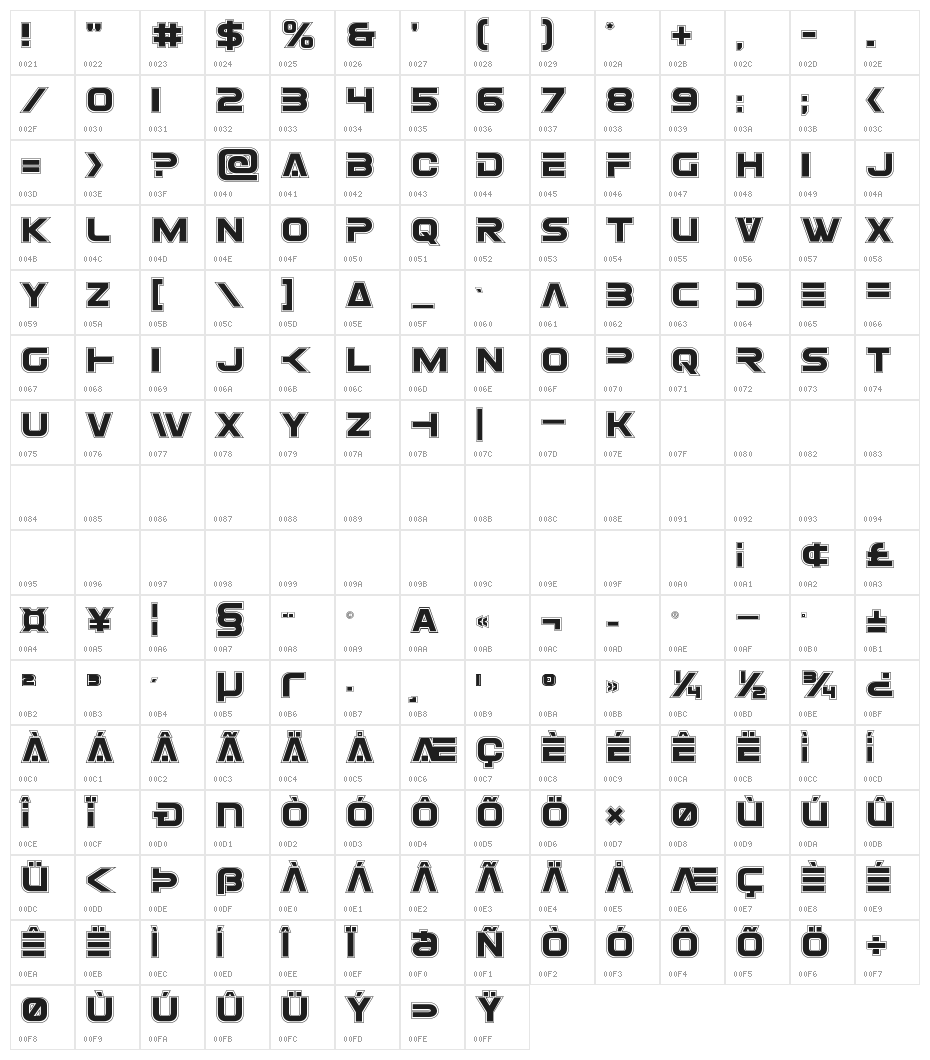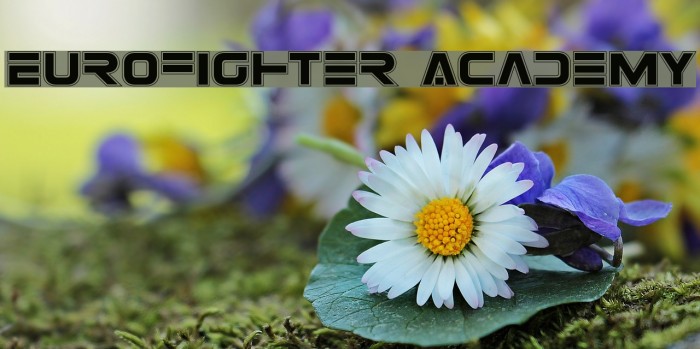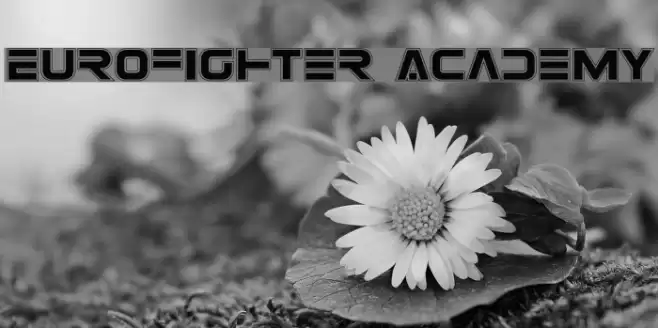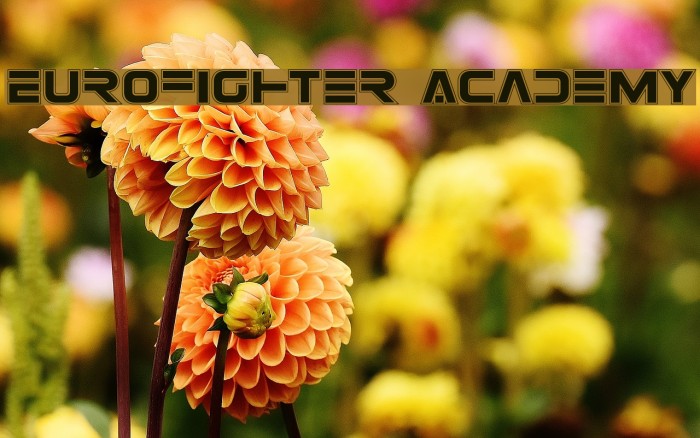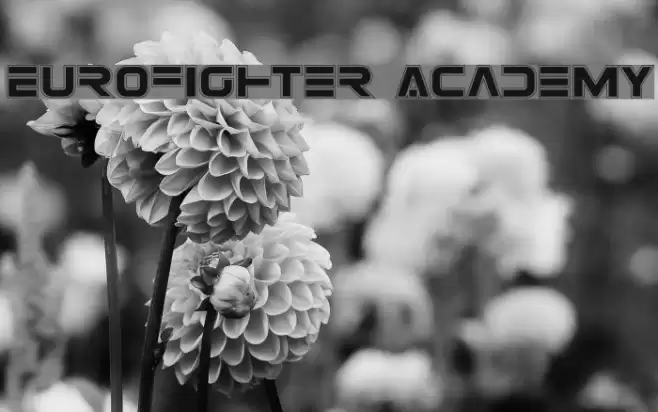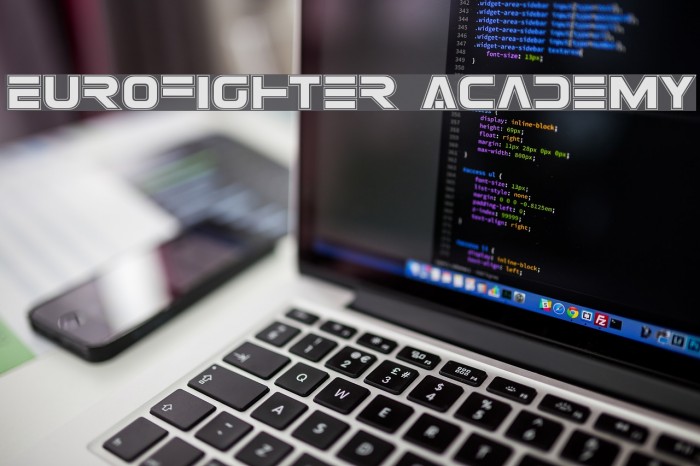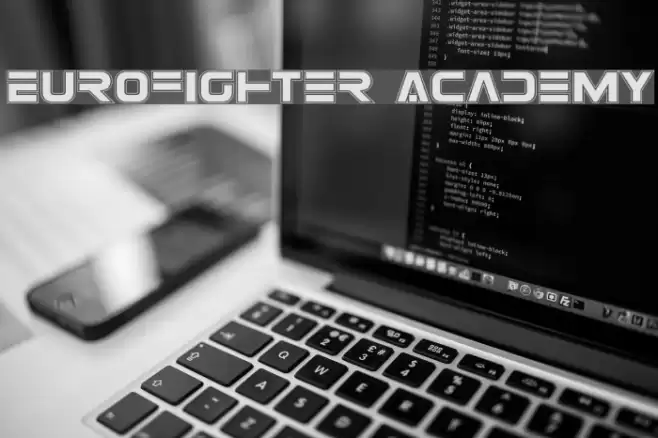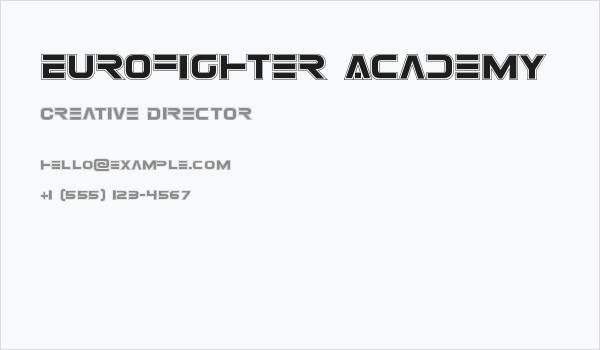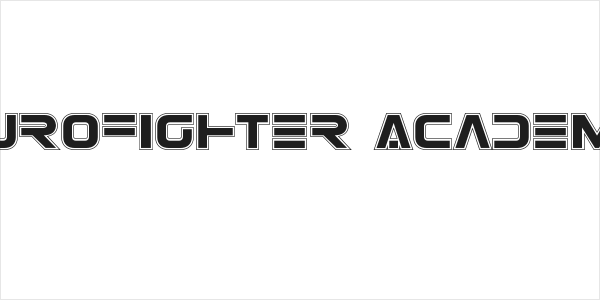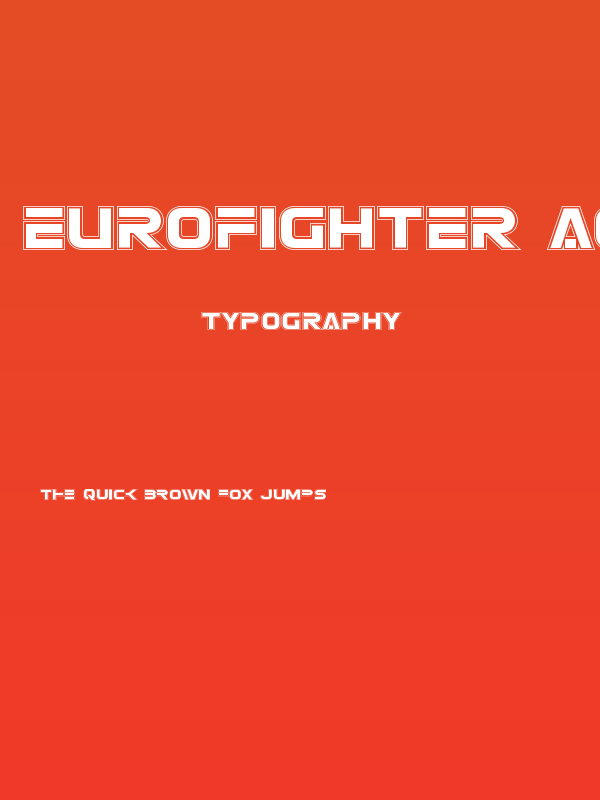
Eurofighter Academy Font
Eurofighter Academy Description
This font features a bold, geometric design with a futuristic and industrial feel. The characters are constructed with thick, angular lines and a distinct outline that gives them a three-dimensional appearance. The uppercase letters are particularly striking, with sharp edges and a sense of movement. The numbers and special characters maintain this bold, structured style, ensuring consistency across all glyphs. The font's design is reminiscent of technology and aerospace themes, making it ideal for projects that require a modern and dynamic look.
| Proposed Projects | Ideal for technology branding, aerospace-themed designs, video game titles, and modern posters. |